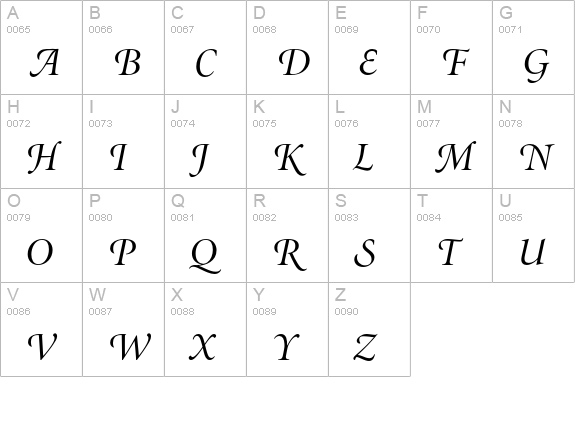
Minion Italic Display Swash Font Details
Minion Italic Display Swash is a distinctive, italic variant in the Minion typeface family \xE2\x80\x94 well suited to design and typography projects.
The Minion Italic Display Swash font is a stunning and elegant typeface that exudes sophistication and charm. Its intricate swashes and decorative flourishes add a touch of artistic flair to any design project, making it perfect for invitations, branding, and other creative works. This font combines the classic appeal of the Minion typeface with a modern twist, creating a unique and eye-catching look. Best of all, this font is available for free download at FontsMarket.com, allowing designers to access its beauty and versatility without any cost. Elevate your designs with the Minion Italic Display Swash font and make a lasting impression with its timeless elegance.